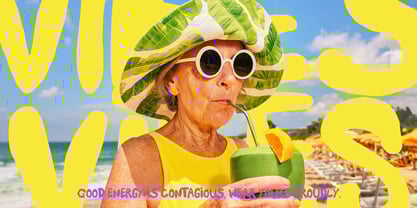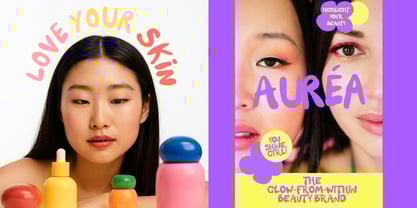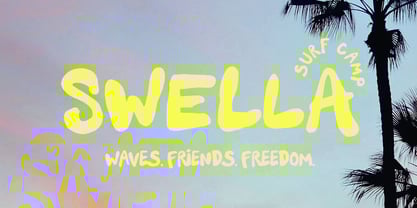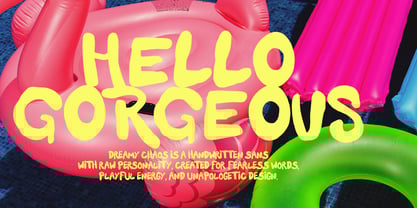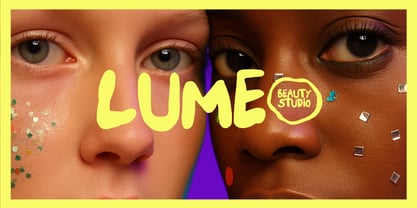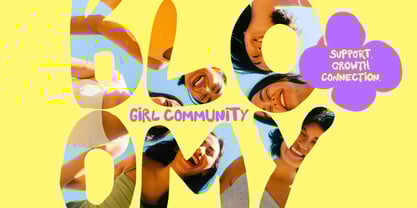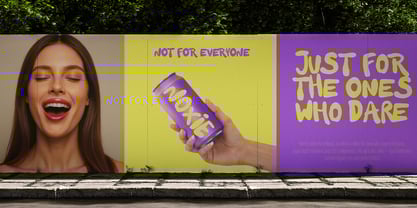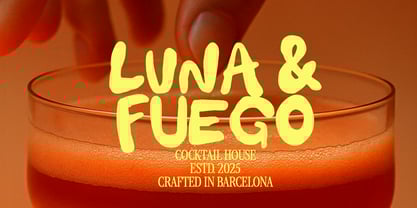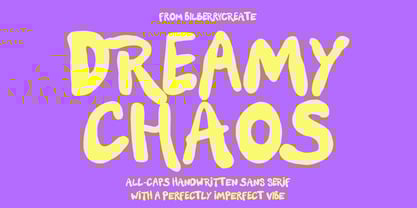
Dreamy Chaos
by Bilberry Create
The Dreamy Chaos Font Family was designed by Daria Cherniackova and published by Bilberry Create. Dreamy Chaos contains 1 styles.
Meet Dreamy Chaos – an all-caps handwritten sans serif with a bold, playful spirit and a perfectly imperfect charm. Its rounded, organic letterforms bring an effortless, hand-crafted feel that’s ideal for brands and creators who want to stand out with authenticity.
Perfect for:
• Eye-catching posters and packaging
• Fun, vibrant branding and logos
• Social media graphics with personality
• DIY projects, cards, and more
Add a touch of carefree creativity to your designs – Dreamy Chaos is here to make a statement.